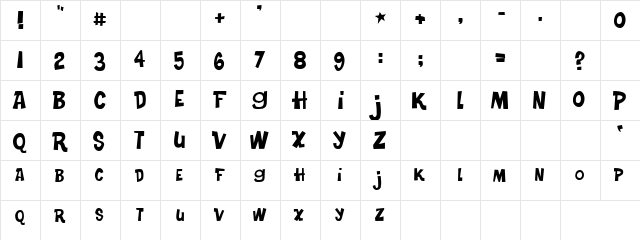
Rocky Rock Regular
Design Context for Rocky Rock Typeface
Rocky Rock is a composed and adaptable typeface that performs quietly and consistently across a wide range of design contexts.
Pro Tip: Use Rocky Rock in both headline and body roles to test its range before committing to a single application.